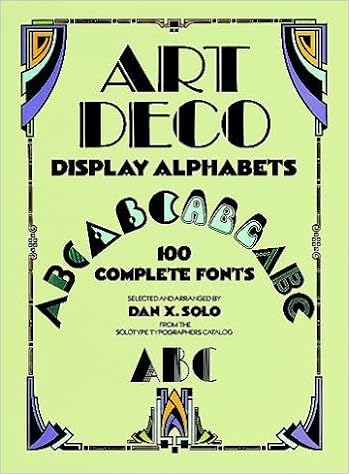
Art Deco Font Styles
Art deco font styles. Art Deco was a direct response aesthetically and philosophically to the Art Nouveau style and to the broader cultural phenomenon of modernism Art Nouveau began to fall out of fashion during WWI as many critics felt the elaborate detail, delicate designs, often expensive materials and production methods of the style were illsuited to a. The style is characterized by straight lines and sharp angles, which is completely different from its predecessor, Art Nouveau Many Art Deco fonts are available only in capital letters and they are usually suitable for display designs Due to its decorative nature, it is good for projects like poster, advertisements, book covers, etc RM Deco. Decode is a retro font, referencing the Art Deco typography from the 19s and 30s The font is designed to be in keeping with the Art Deco style but with a contemporary and modern finish making it a stylish solution for all kinds of projects The font is available in 3 complimentary styles.
Art Deco Fonts for 19's Vintage Perfection Free and premium Arts Décoratifs fonts for download The Art Deco "modern" style of the 1910's and 's is full of rounded, double lined fonts that are coming back into style now They're gorgeous and overstated, great for display and poster designs Here's a list of lovely ones. Launched in 1996, the Font Diner has become a major resource for retro design software products With more than 400 original typefaces for the graphic design industry, we've established a reputation as the premier retro display type foundry inspired by 1950s popular culture. First released in 1929, Broadway exudes the atmosphere of the Roaring Twenties Thick black strokes on the left half of characters such as the 'B' and 'O' make the letterforms abstract and ornamental Where thick and thin strokes meet, the letterforms feature angles rather than curves, similar to the way Art Deco treats natural forms.
Most of these fonts are styles and patterns that may have been inspired by twodimensional and threedimensional geometric shapes or handwriting These fonts can be used in architectural and typography logos, business cards, and projects of the visual identity of buildings Waverly CF is an art deco sansserif font designed by Connary Fagen. Many Art Deco type styles are allcap fonts, and almost all are display designs due to their decorative nature Consider using these stylish and unique typefaces for posters, advertisements, book covers, announcements – whenever you want to evoke the timeless glamour of an era gone by. Art Deco Font is considered the most stylish and most recognizable typography of the th Century The classic Art Deco aesthetic streamlined, geometric design heavily influenced lettering and calligraphy Straight lines and sharp angles were preferred over the cursive, scroll typography of the preceding design style, Art Nouveau.
Art Deco Fonts 1 Brilon Font Extras Brilon is an Art Deco inspired typeface by Tobias Saul This clean font includes unique 2 Metropolis Typeface A gorgeous art deco typeface designed by Tugcu Design Co The Metropolis font includes uppercase 3 Hazel Deco Font Hazel is an all caps. Art Deco type is making a resurgence at the moment, you can see Art Deco type in use for logotypes, and in product and package design projects Art Deco type styles are being used for projects where rustic vintage fonts were about a year or two ago, like in the logotype for distilling company Tom’s Town. Art Deco Fonts to Create Retro Logos, Posters, and Websites Pin it for later!.
Looking for Decorative Art Deco fonts?. We have 155 free artdeco, vintage fonts to offer for direct downloading · 1001 Fonts is your favorite site for free fonts since 01. 30 Art Deco Fonts 1 Cassandre Font A tribute to French artist and typeface designer, Adolphe JeanMarie Mouron (whose pseudonym is 2 BACKSTAGE This lovely sans serif by IvannaIvashka is all about clean, updated letterforms that will lend the right 3 Emblema Get more out of one purchase.
While Art Deco is still alive and kicking when it comes to desktop publishing and design of various sorts, when combined with effective fonts, it can help create that really eyecatching design projectSome of the things you should look for when choosing the perfect art deco fonts for your work are stated below 1) Some of these are popular marquee fonts used on both television and movie posters. Click to find the best 96 free fonts in the Decorative Art Deco style Every font is free to download!. Art deco fonts Related tags art deco retro geometric display sansserif magazine grotesque sans poster legible headline vintage modern decorative bold stylish grotesk fashion elegant classic branding alternates logo hipster clean.
Browse worry, free commercial use fonts, web fonts, and app fonts tagged 'Artdeco' at Fontspring. The "Fonts Collection" section is the place where you can browse, filter, custom preview and. The beautiful Art Deco font style features uppercase multilingual letters, numbers, and punctuation 5 Ironclad Typeface As you can see, this 19s font has clean, bold, rounded lines, which are one of the hallmarks of Art Deco typefaces The font comes in three weights and includes multilingual uppercase letters, numbers, and punctuation.